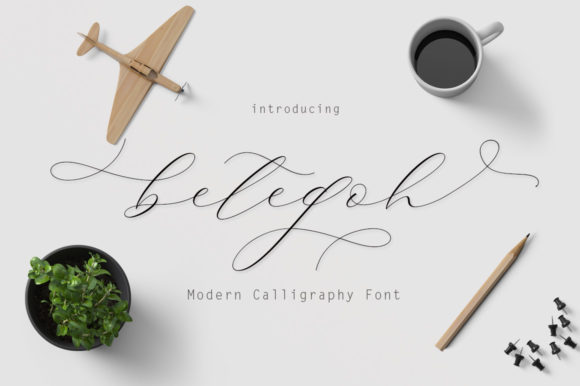
The Elegance of Betegoh Font: A Designer’s New Best Friend
I’ll never forget the time I was working on a luxury branding project for a high-end jewelry client. I had spent hours perfecting the logo design, but something was missing. The font I had chosen just wasn’t giving off the sophisticated vibe I was going for. That’s when I stumbled upon the Betegoh font, and it completely transformed the project. In this article, I’ll share my experience with this elegant script font and provide a comprehensive guide on how to make the most of it.
A Personal Review of Betegoh Font
• ✨ The elegant and modern design of Betegoh font makes it perfect for luxury branding projects.
• ✅ The thin and italic style adds a touch of sophistication to any design.
• 💫 The font’s versatility makes it suitable for a wide range of applications, from logos and packaging to quotes and posters.
While Betegoh font is an excellent choice for many projects, there are a few things to keep in mind:
• ⚠️ The font’s thin style may not be suitable for very small text sizes or low-resolution designs.
• 🤔 Some users may find the font’s italic style a bit too slanted for their taste.
The Story Behind Betegoh Font
The Betegoh font was designed with one goal in mind: to create a elegant and modern script font that’s perfect for luxury branding projects. The designer spent countless hours perfecting the font’s curves and lines to create a truly sophisticated look. The result is a font that’s both timeless and trendy, perfect for designers and crafters who want to add a touch of elegance to their work.
Q: What is the best use for Betegoh font?
A: Betegoh font is perfect for luxury branding projects, logos, packaging, quotes, posters, and any other design that requires an elegant and sophisticated touch.
Q: Is Betegoh font suitable for body text?
A: While Betegoh font is elegant and sophisticated, it’s not the best choice for body text. It’s better suited for headlines, titles, and short paragraphs.